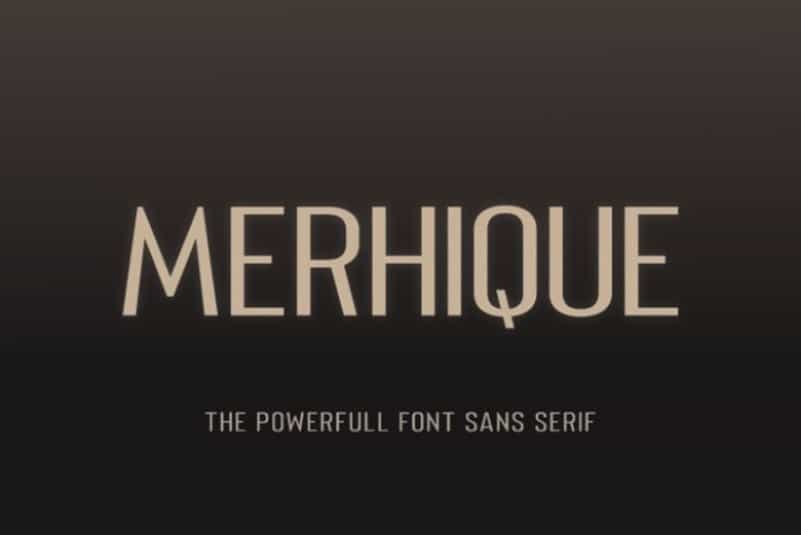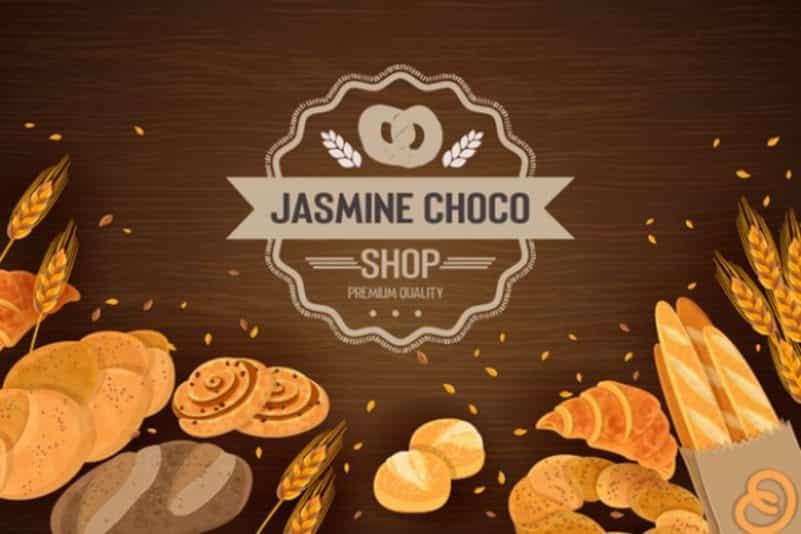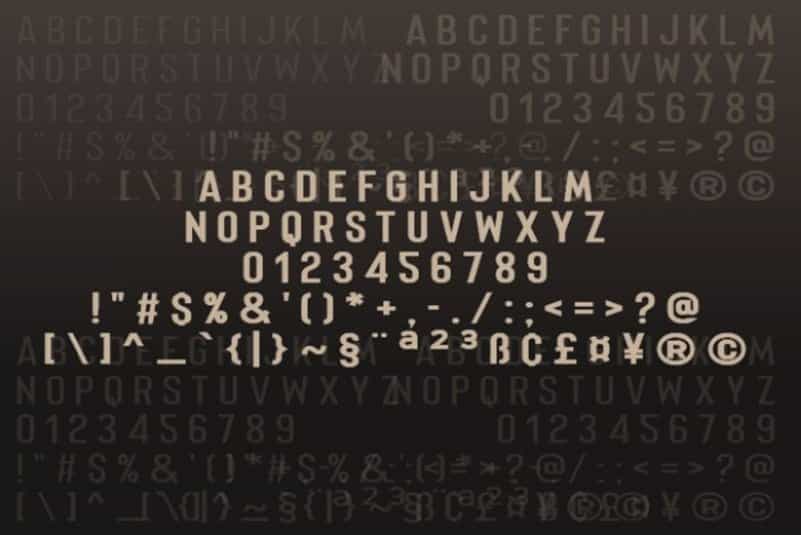
Merhique is a better, timeless and more powerful all caps sans serif font that looks great in the layouts, headers, web and many other contexts! Having four different weights, it is just perfect for magazine layouts, invitations or anything else you are working on.